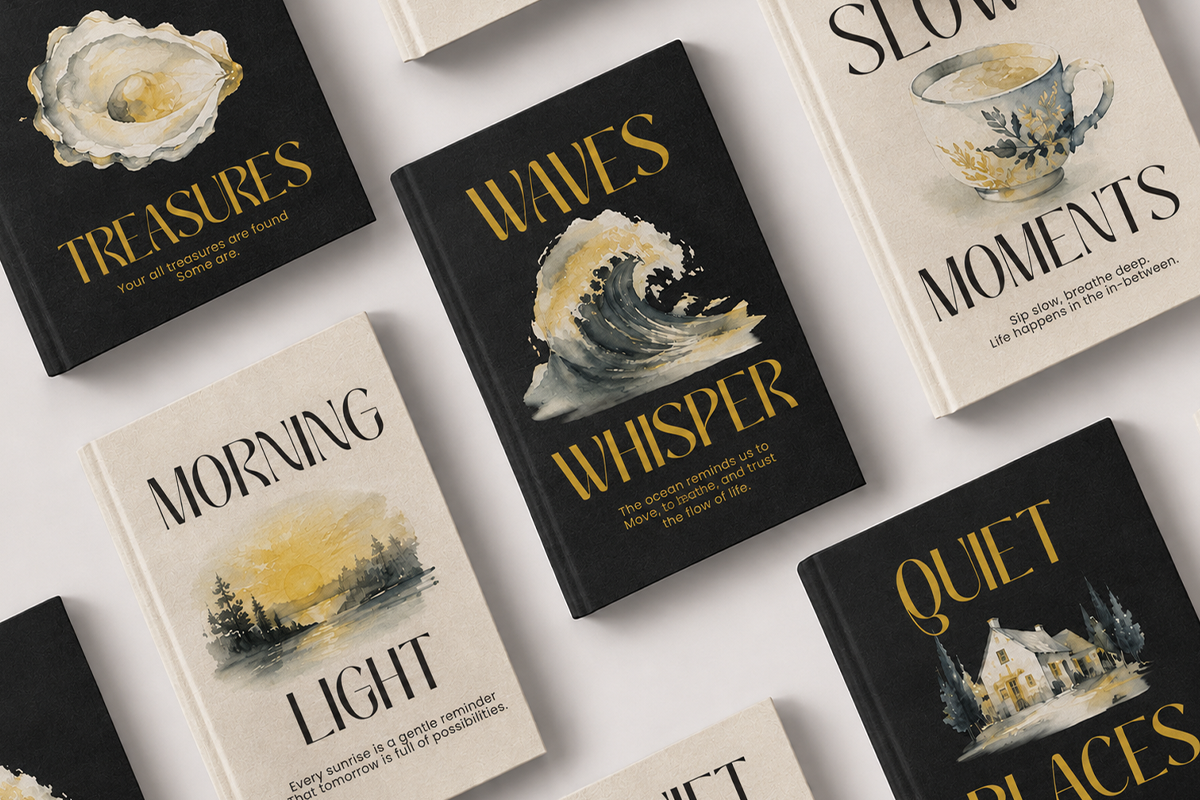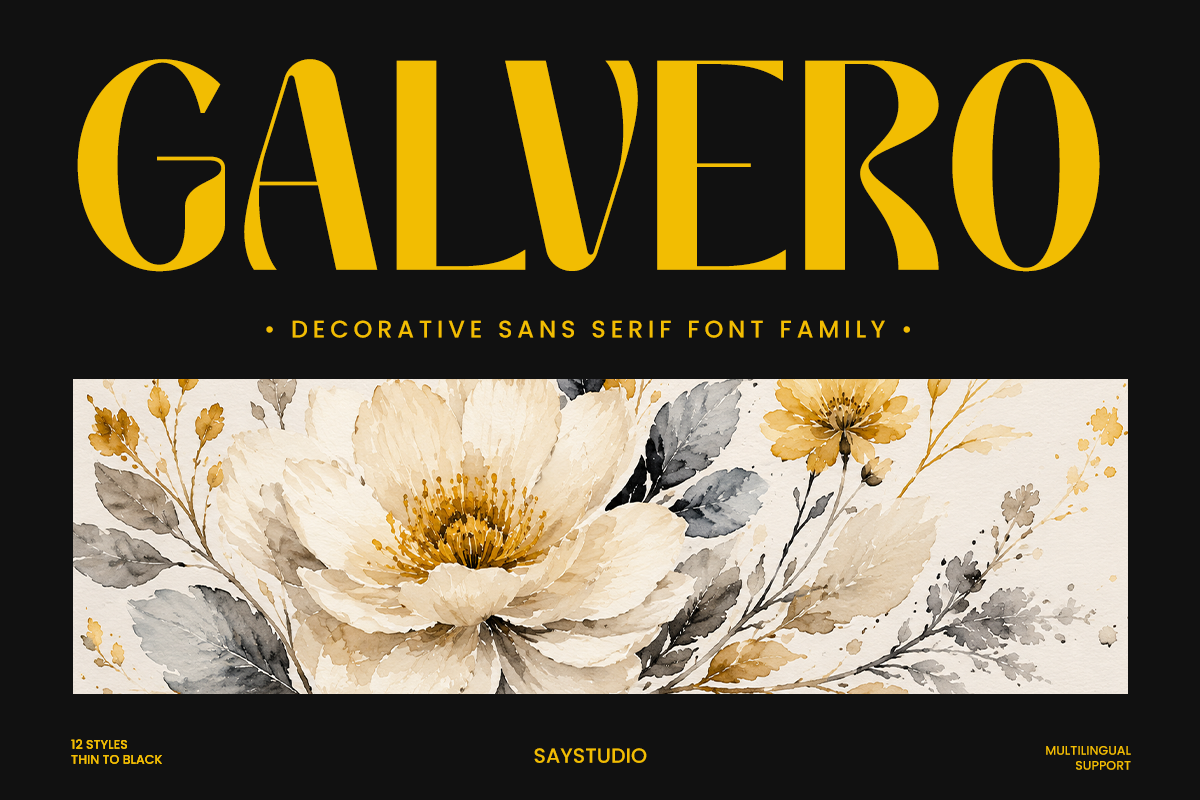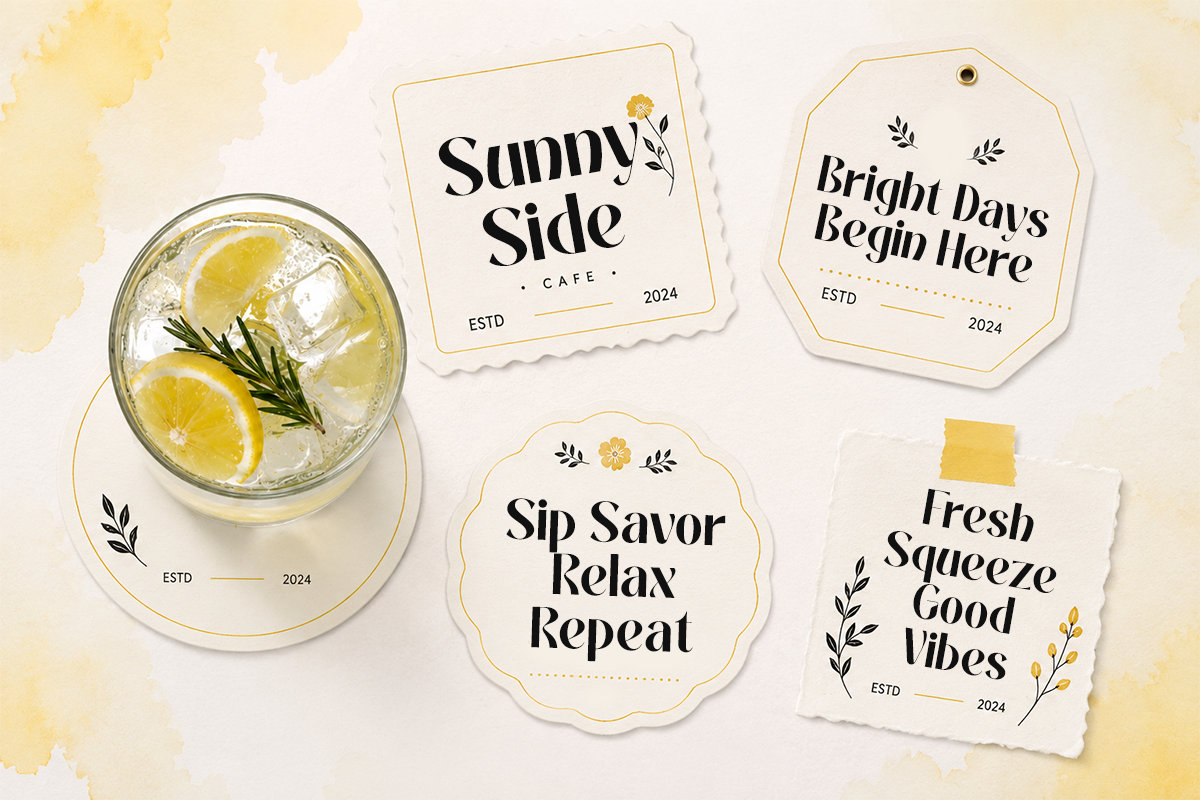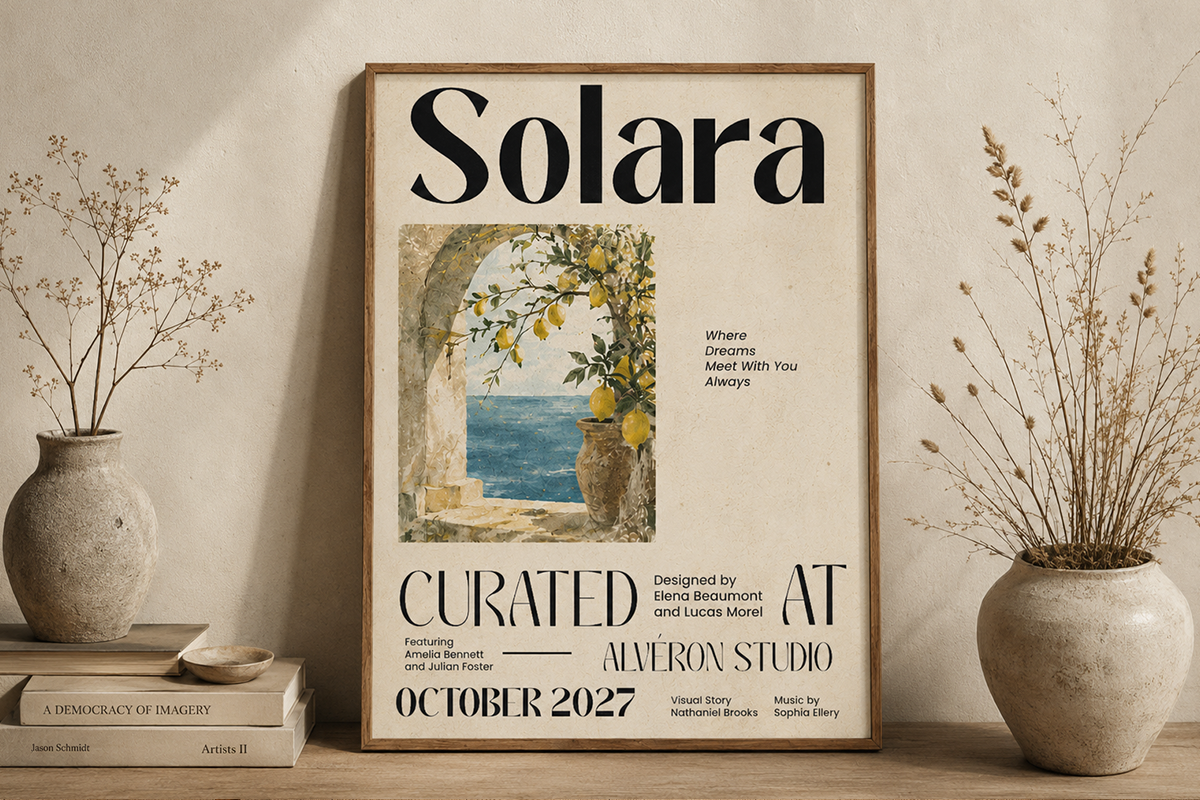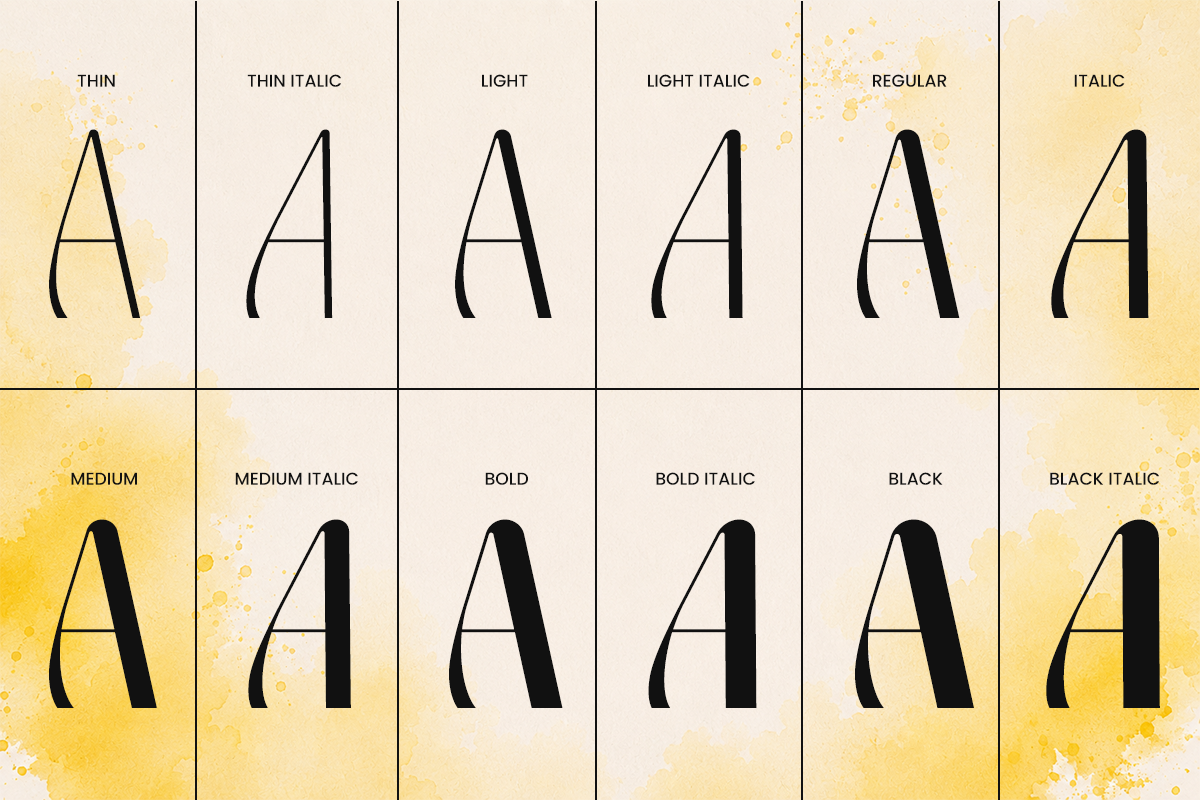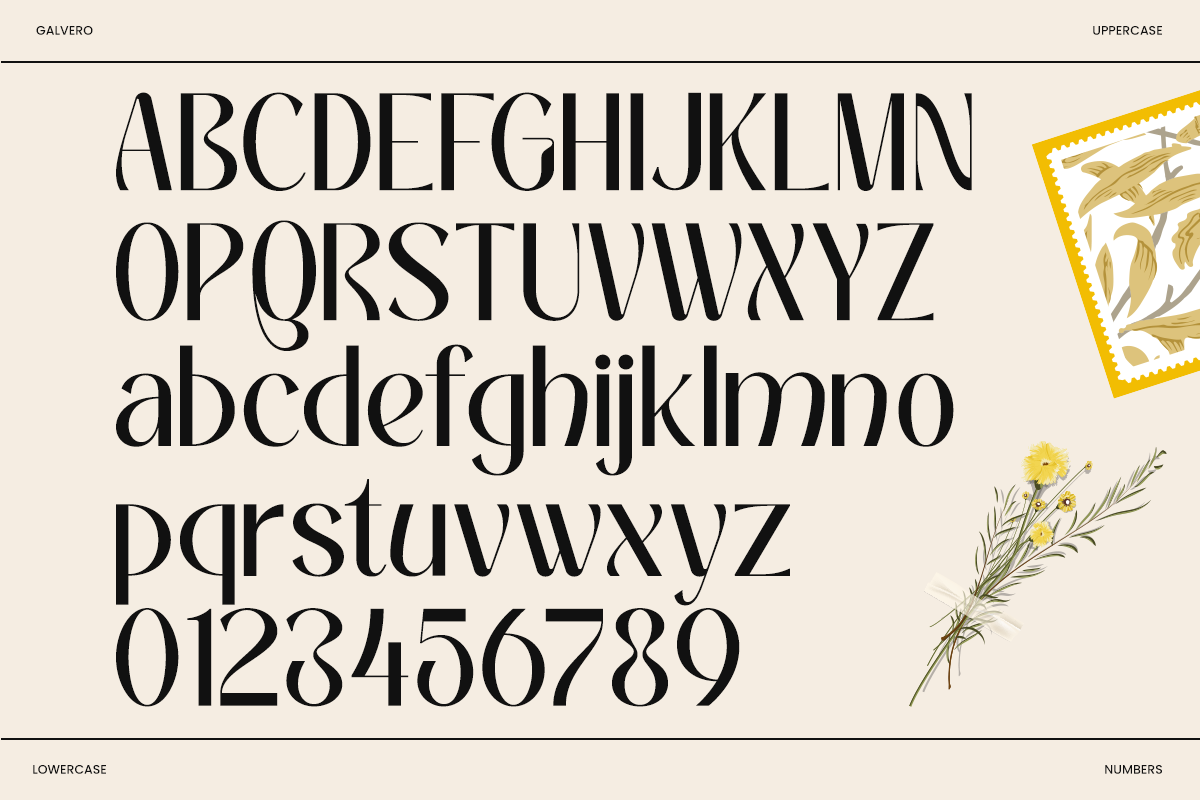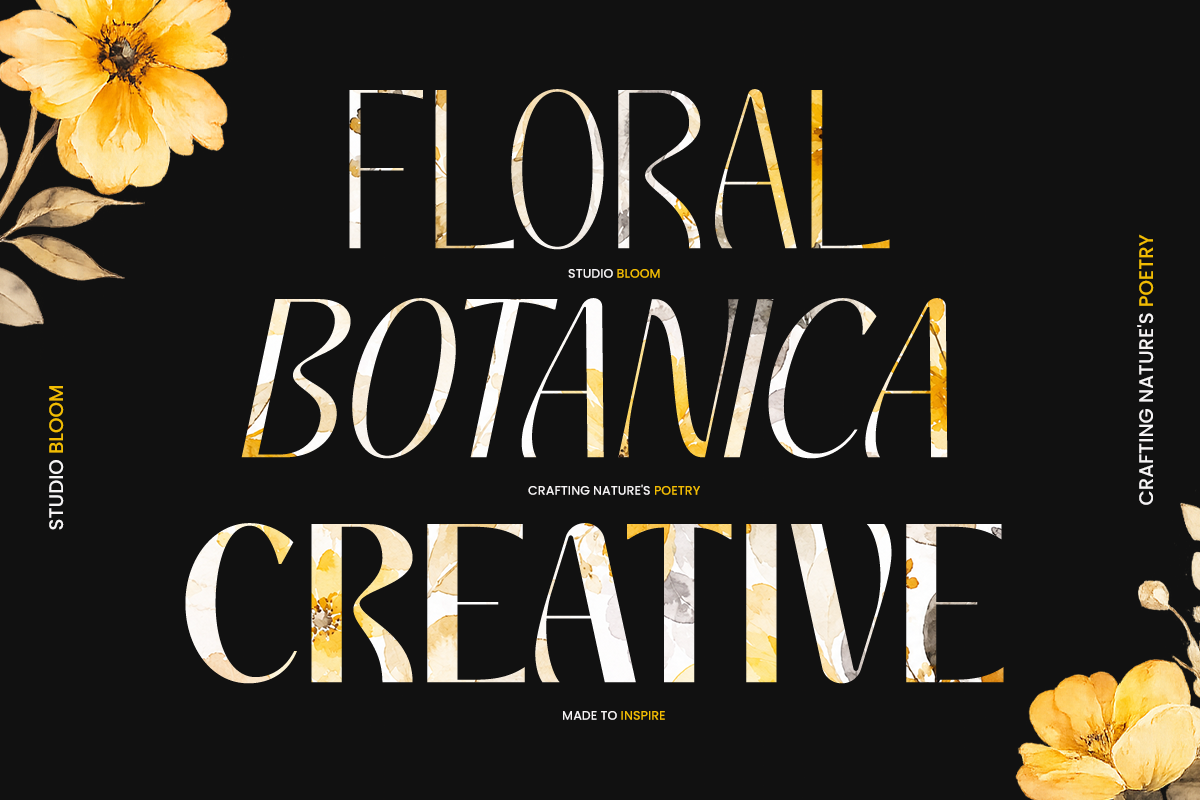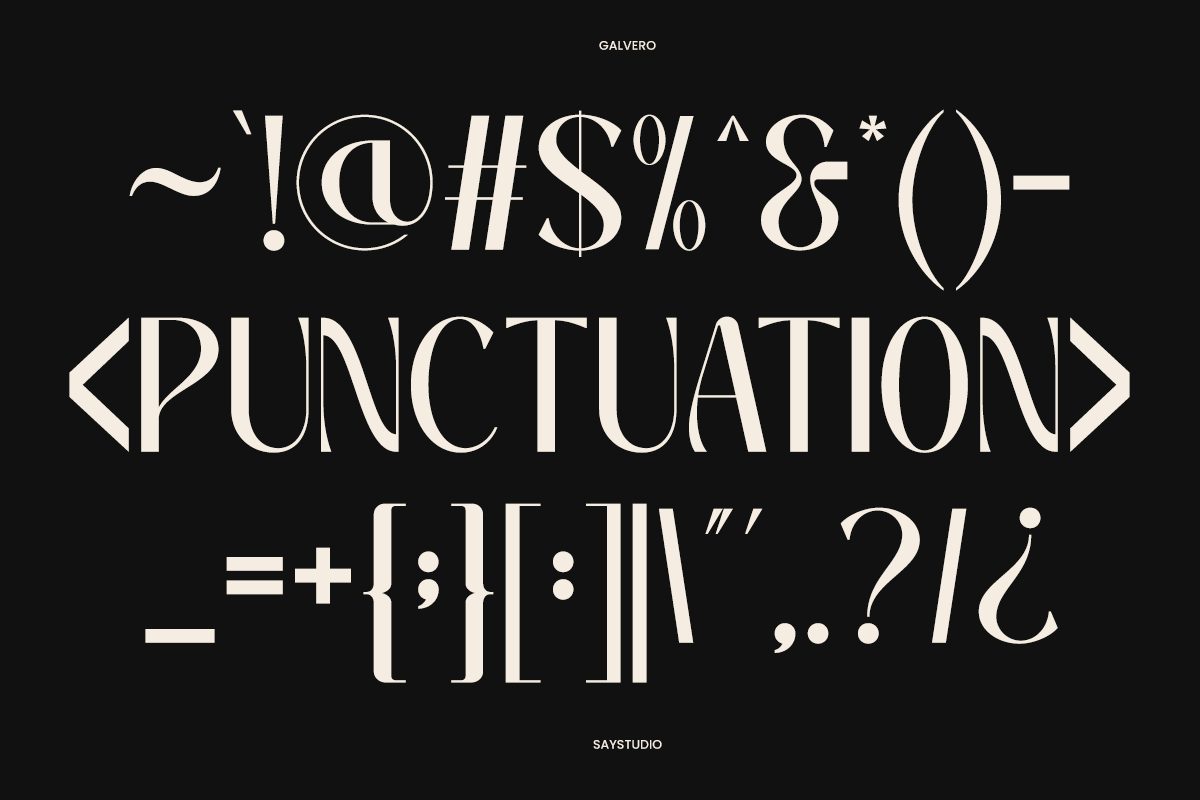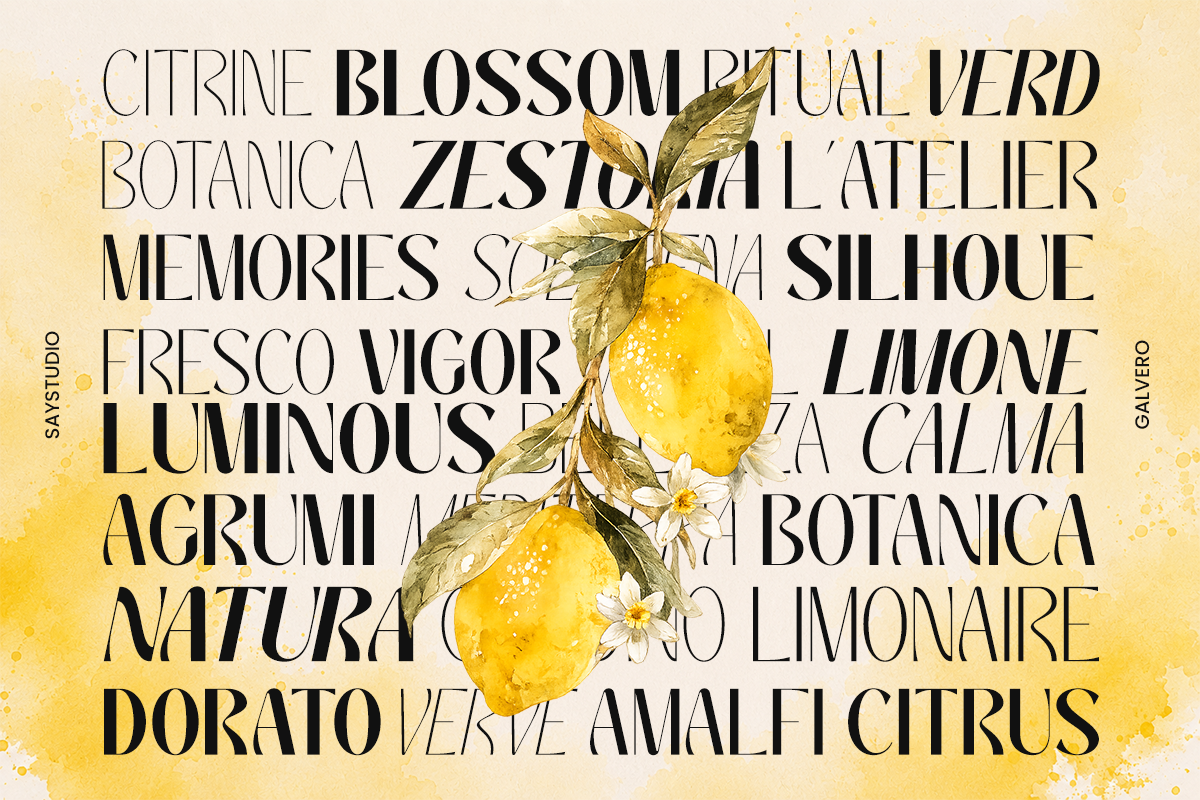
Galvero – Decorative Family Font
Galvero is a premium decorative sans serif font family featuring 6 versatile variable weights, crafted to bring elegance, sophistication, and artistic character into every design. Its tall proportions, refined curves, and distinctive decorative details create a luxurious visual presence, making it perfect for branding, editorial design, beauty packaging, fashion campaigns, hospitality, and premium marketing materials.
Designed for maximum flexibility, Galvero includes six carefully balanced weights that allow you to create everything from delicate headlines to bold visual statements while maintaining a consistent identity. The family includes uppercase, lowercase, numerals, punctuation, multilingual support, and elegant ligatures, giving designers complete creative freedom across logos, magazines, invitations, packaging, social media, websites, and print projects.
Whether you're building a luxury brand, botanical packaging, wedding stationery, cosmetic labels, cafés, home décor collections, or modern editorial layouts, Galvero delivers timeless sophistication with exceptional versatility. Available in OTF, TTF, and WOFF formats, this font family is an ideal choice for designers seeking premium typography that performs beautifully across both digital and print media.
6 Variable Weights
Thin to Black Variation
Regular and Italic Style
Number, Symbol, and Punctuation